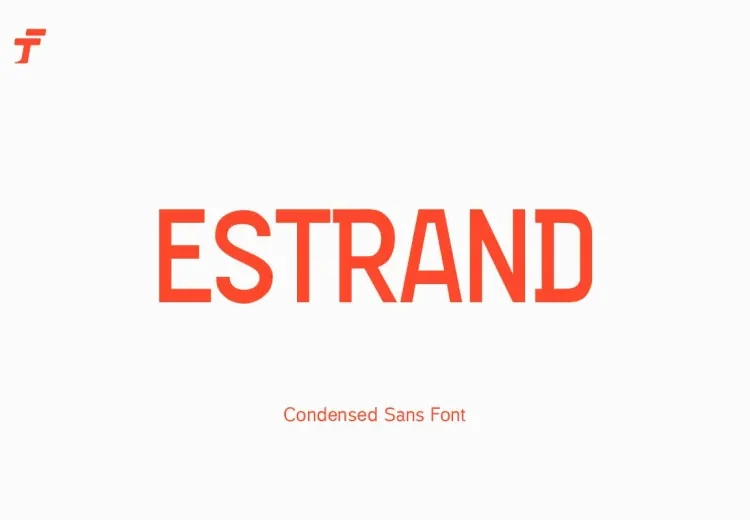
Estrand Font
Introducing ‘Estrand,’ a meticulously crafted elongated sans serif font designed for ultimate durability and versatility. Combining modern aesthetics with robust functionality, ‘Estrand’ is ideal for applications that require both strength and elegance.
Key Features of Estrand Font:
• Durable and Clear: Engineered with strong, legible letterforms, ‘Estrand’ excels in industrial and outdoor environments. Perfect for road signs, traffic signals, and extensive advertising, it ensures clarity and readability even under challenging conditions.
• Modern Simplicity: With its sleek, elongated design, ‘Estrand’ offers a contemporary touch while maintaining a timeless style. Its clean lines and balanced proportions make it suitable for various design and development projects, from signage to branding.
• Versatile Usage: Whether you’re working on outdoor advertising campaigns, industrial signage, or modern design projects, ‘Estrand’ adapts seamlessly to your needs. Its strength and elegance make it an excellent choice for diverse applications.